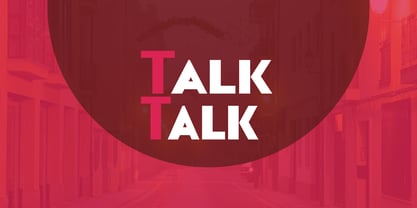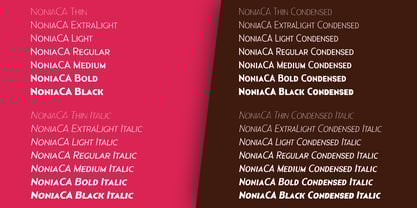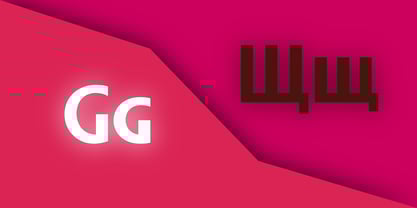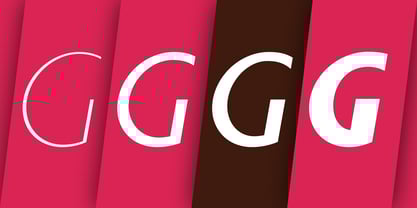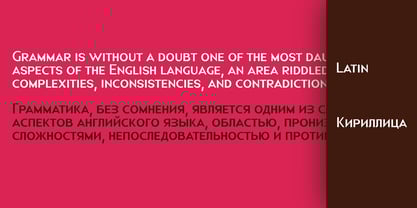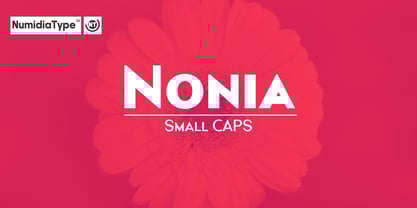
Nonia Small CAPS
by NumidiaType
The Nonia Small CAPS Font Family was designed by Yassine Abdi and published by NumidiaType. Nonia Small CAPS contains 28 styles and family package options. More about this family
Nonia™ Small CAPS is a versatile and contemporary font designed with a unique blend of professionalism and elegance. This independent typeface family offers a distinctive range of styles, ideal for both titling and extended text applications. Featuring small caps and powerful professional OpenType features, Nonia Small CAPS brings refined scripting aesthetics to a modern design context. It supports both Western European and Cyrillic scripts, making it perfect for international projects and diverse markets. With its robust character set, Nonia™ Small CAPS excels in web design, books, UI, and UX environments, offering legibility and style across both digital and print media. Whether you're working on marketing materials, branding, or user interface design, Nonia™ Small CAPS ensures a professional, polished appearance that enhances readability and visual impact. Available in Two families: Default and Condensed.
Designers: Yassine Abdi
Foundry: NumidiaType